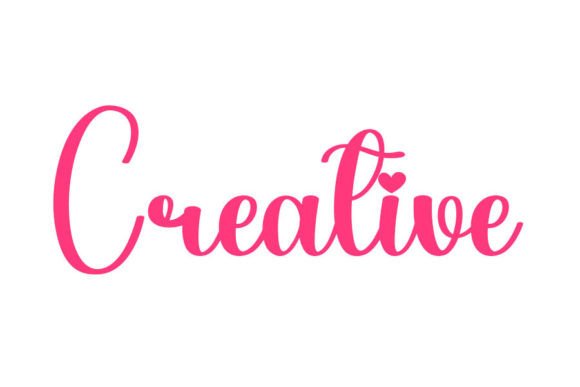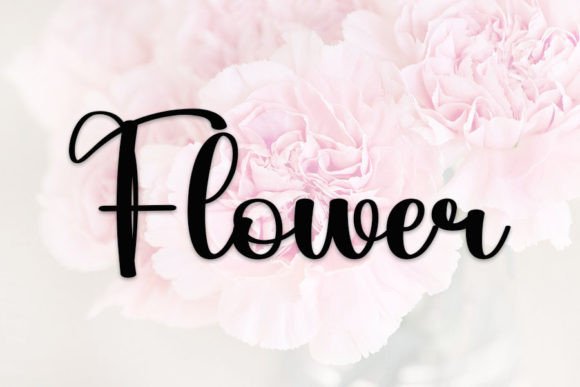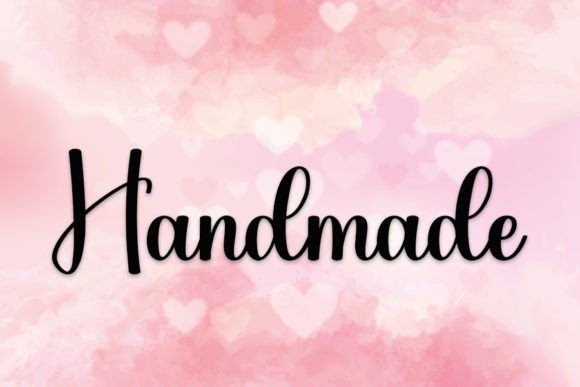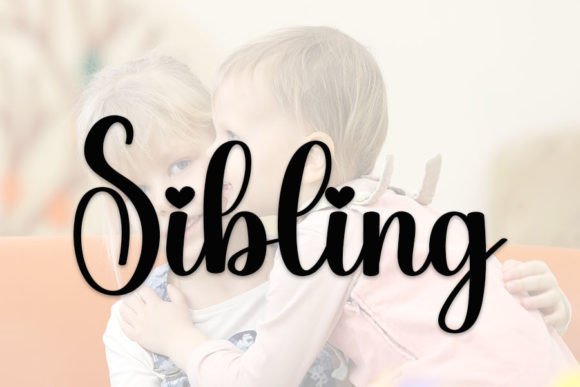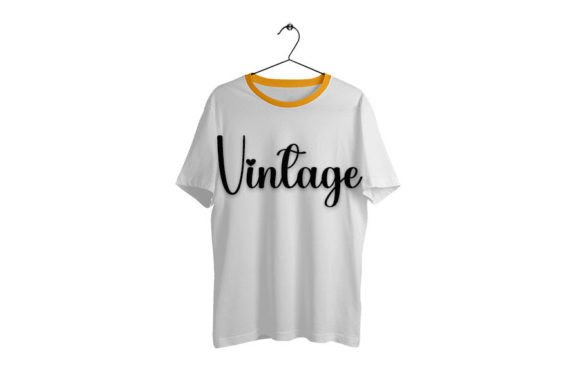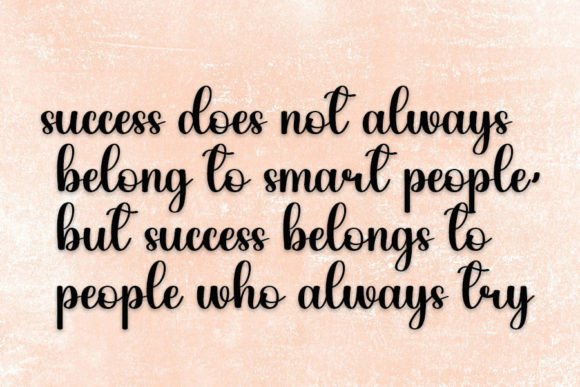
Creating Something Beautiful: The Magic of Fonts
Have you ever sat at your desk, staring at a blank canvas, and suddenly felt an overwhelming urge to create something beautiful? The spark of inspiration can strike at any moment, and when it does, it’s essential to have the right tools to bring your vision to life. That’s where fonts come in – the unsung heroes of design that can elevate your project from ordinary to extraordinary.
One font that’s sure to captivate your creativity is the Beautiful Barbie Font. This elegant handwritten font is perfect for adding a touch of whimsy and sophistication to your favorite project. With its distinct and timeless style, the Beautiful Barbie Font is a valuable asset for designers looking to create spectacular designs that stand out from the crowd.
Beautiful Barbie Font Key Features
- Unique Characteristics: The Beautiful Barbie Font is designed with a playful and elegant style, featuring cursive and script elements that evoke a sense of femininity and sophistication.
- Character Set: The font includes a comprehensive character set, including uppercase and lowercase letters, numbers, punctuation marks, and special characters, making it suitable for a variety of applications.
- Font Weight and Style: The Beautiful Barbie Font comes in a range of font weights, including Light, Regular, Bold, and Italic, allowing users to customize the font to suit their needs.
Designer Review: Beautiful Barbie Font
First off, I have to say that I was immediately drawn in by the playful and whimsical vibe of the Beautiful Barbie Font. ✨ It’s perfect for designers looking to add a touch of femininity and elegance to their projects. The font’s curvaceous lines and ornate details are reminiscent of vintage feminine scripts, but with a modern twist.
One of the things that really stands out about this font is its versatility. ✨ It can be used for a wide range of projects, from fashion and beauty to home decor and lifestyle. The font’s high-quality vectors make it easy to resize and manipulate without losing any detail.
- ⚠️ The font may be too ornate for some projects, and may be difficult to read in small sizes or at a distance.
- ⚠️ Some users may find the font’s feminine aesthetic to be too stereotypical or over-the-top.
Overall, I would say that the Beautiful Barbie Font is a solid choice for designers looking for a feminine and elegant script. While it may have some limitations, its versatility and high-quality design make it a great addition to any font library.
Use the Beautiful Barbie Font for:
– Creating playful and whimsical designs
– Adding a touch of femininity to your branding
– Designing children’s products or educational materials
Alternatives to “Beautiful Barbie Font”
The Great Vibes Font is a beautiful, handwritten font that is perfect for designers who want to add a touch of elegance and sophistication to their designs. It is ideal for use in wedding invitations, greeting cards, and other creative projects where a personal touch is desired.
Compared to Beautiful Barbie Font, Great Vibes Font is more elegant and sophisticated, making it a better choice for formal designs. However, it may not be as playful or whimsical as Beautiful Barbie Font.
The Alex Brush Font is a elegant and sophisticated script font that is perfect for designers who want to add a touch of luxury and sophistication to their designs. It is ideal for use in high-end branding, advertising, and packaging design.